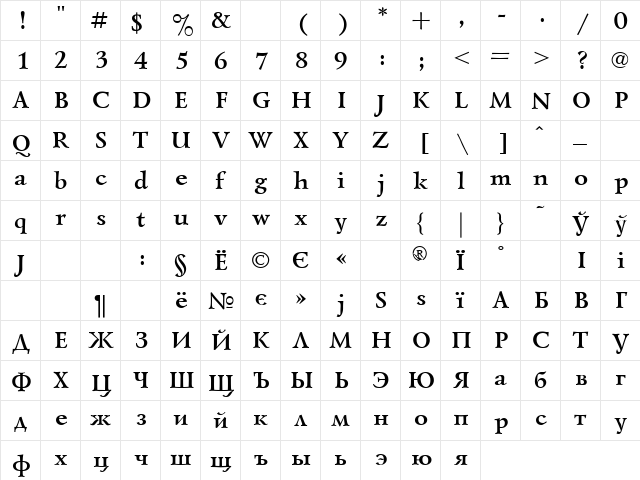
UkrainianLazurski Bold
Design Context for UkrainianLazurski Typeface
UkrainianLazurski offers clean, dependable letterforms without strong stylistic allegiance, making it a practical choice for designers who need flexibility. Its bold stroke weight gives it real presence on the page.